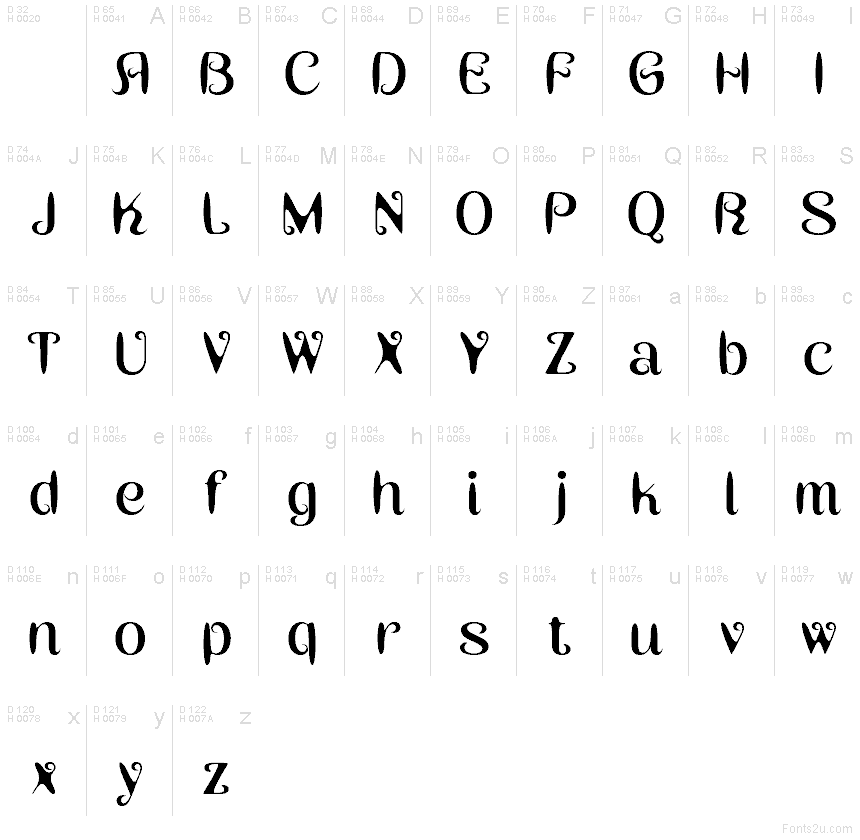
CSCeliaDrawn-Regular Demo
CS Celia Drawn font from Craft Supply Co. is a curly display font with an extremely decorative appearance. It will be instantly recognizable for its aesthetically-wavy letter shapes that do not follow set patterns but rather change styles from one letter to the other.
A free font, CS Celia Drawn can decorate logos, branding material, book titles, invitations, greeting cards, signage, posters, and merchandise items.